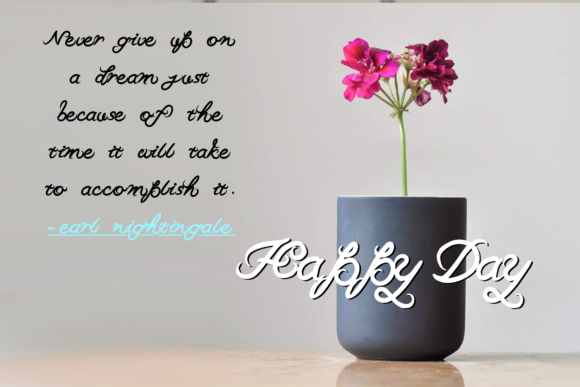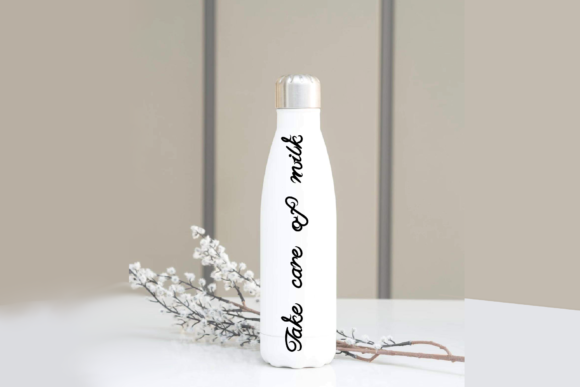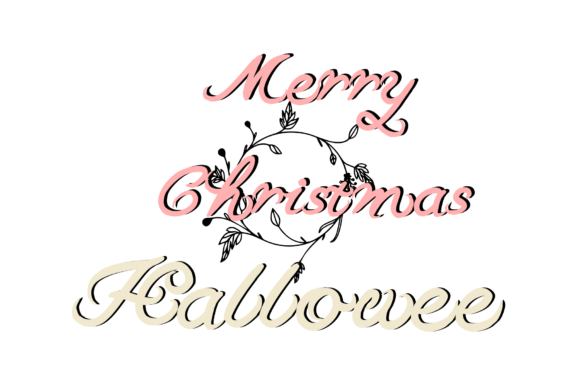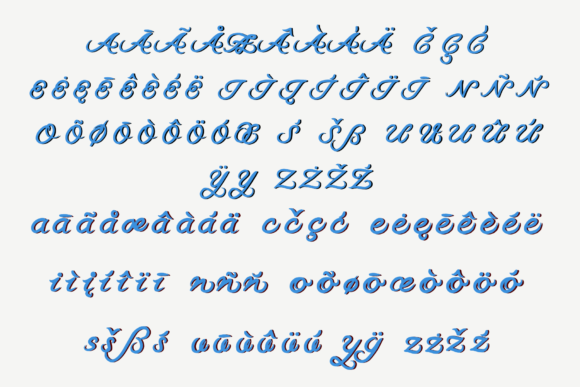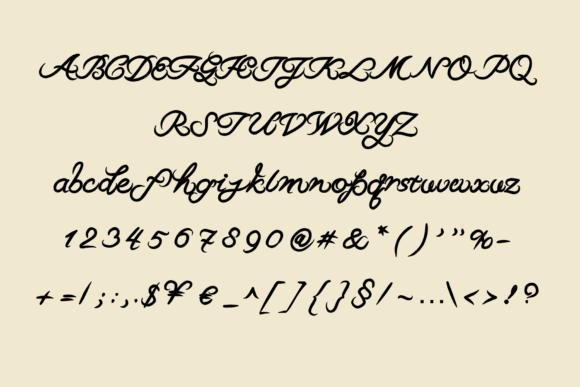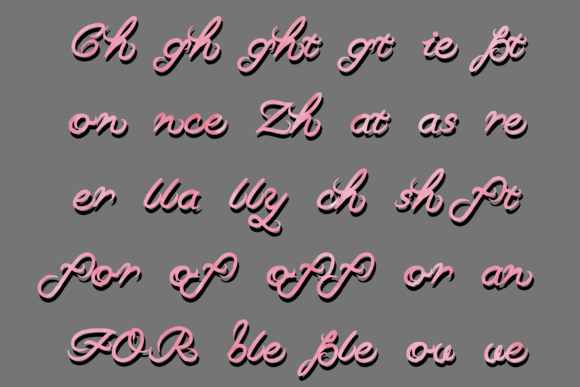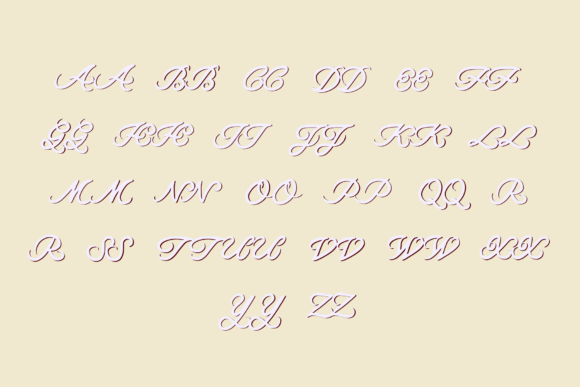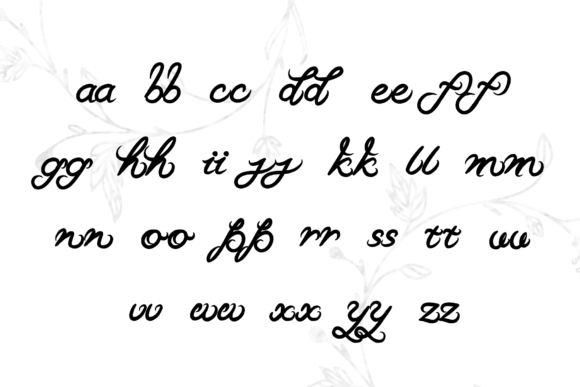
Mustache Font
About Mustache Font
Mustache is a delicate and chic handwritten font. Add this romantic and lovely looking font to each of your love letters, wedding invitations or favorite design ideas, and you will be astounded by the outcome.